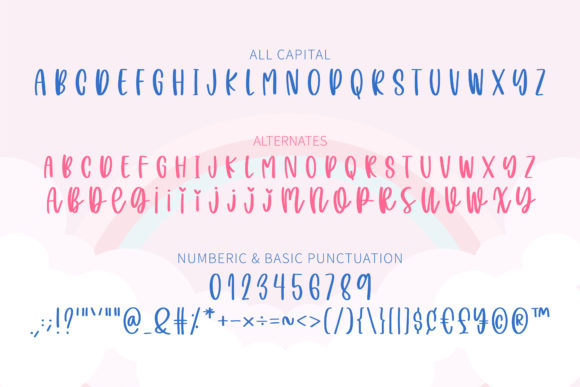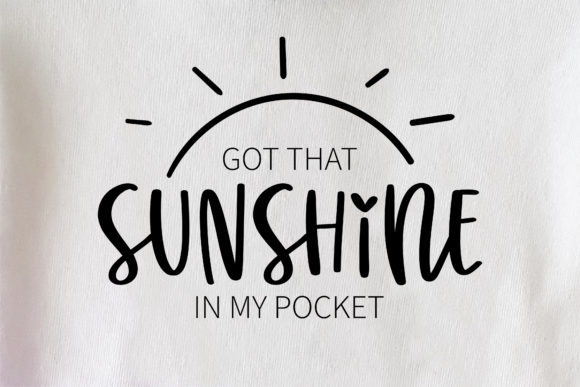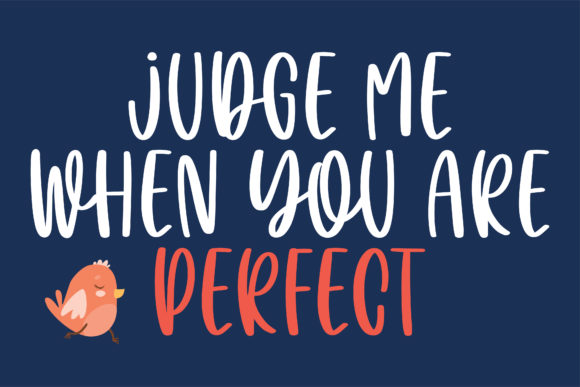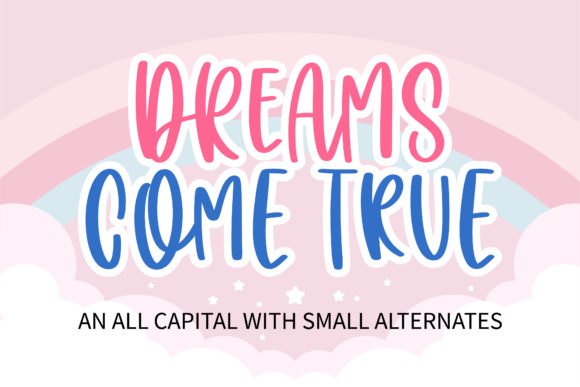
Introduction to Dreams Come True Font
Dreams Come True is a cute handwritten font.
Its natural and unique style makes it incredibly fitting for a large pool of designs The only limit is your imagination.
Dreams Come True Font offers exceptional quality and versatility, making it a valuable addition to your design toolkit. Whether you’re creating for personal projects or commercial use, Dreams Come True Font delivers professional results.